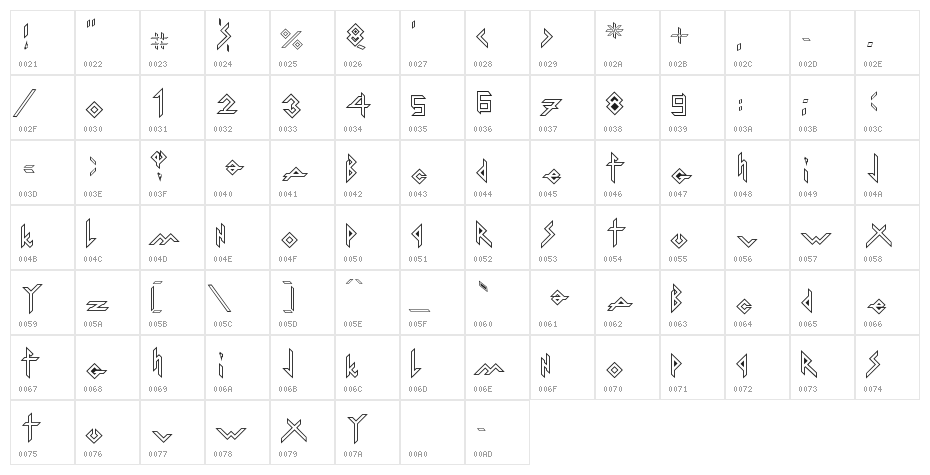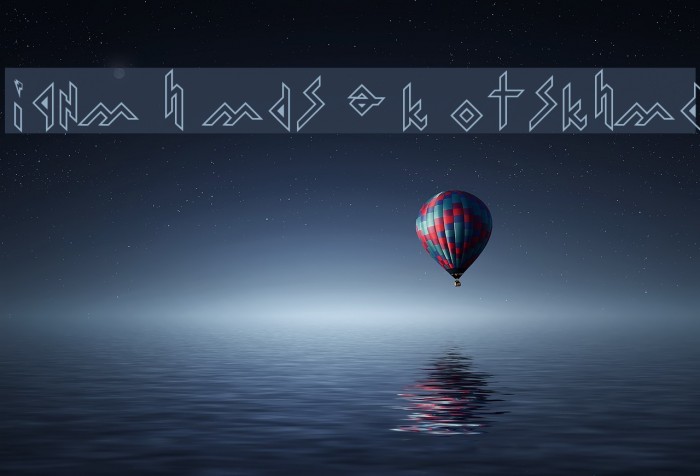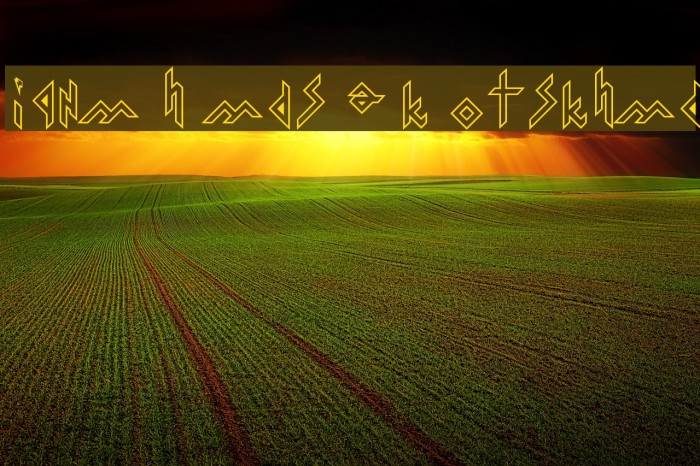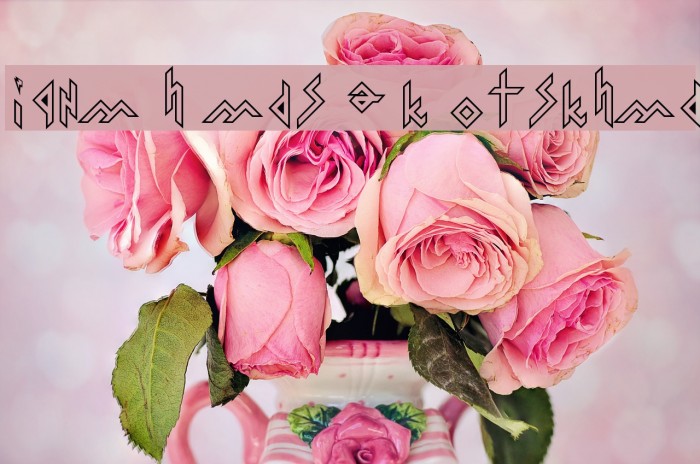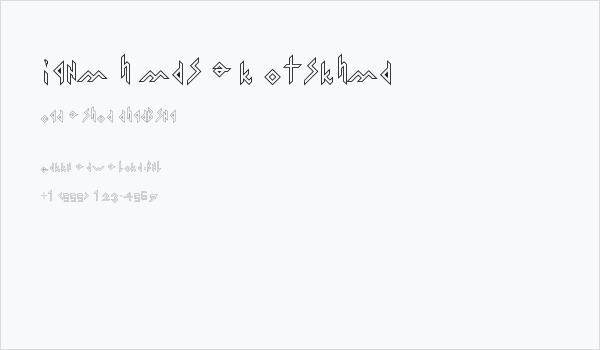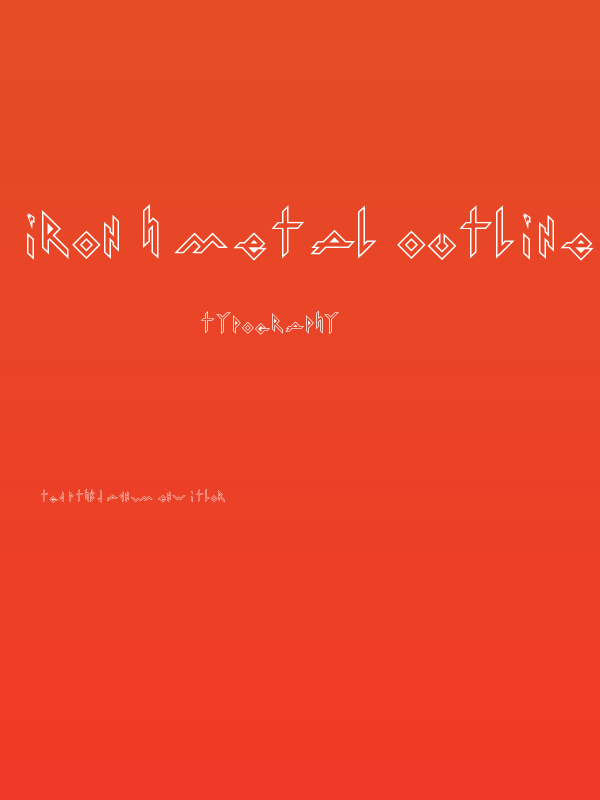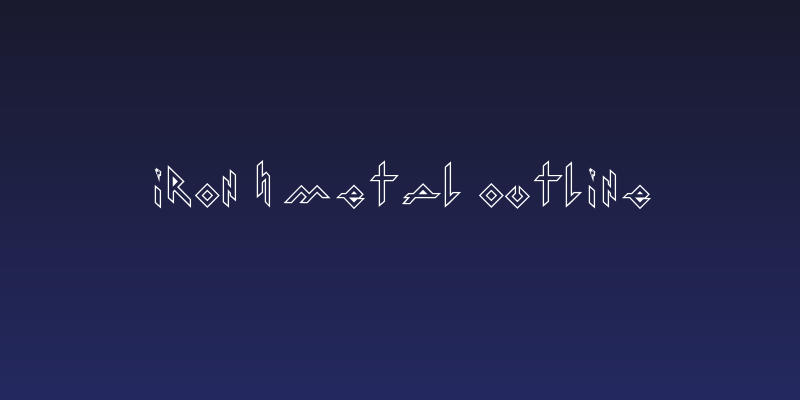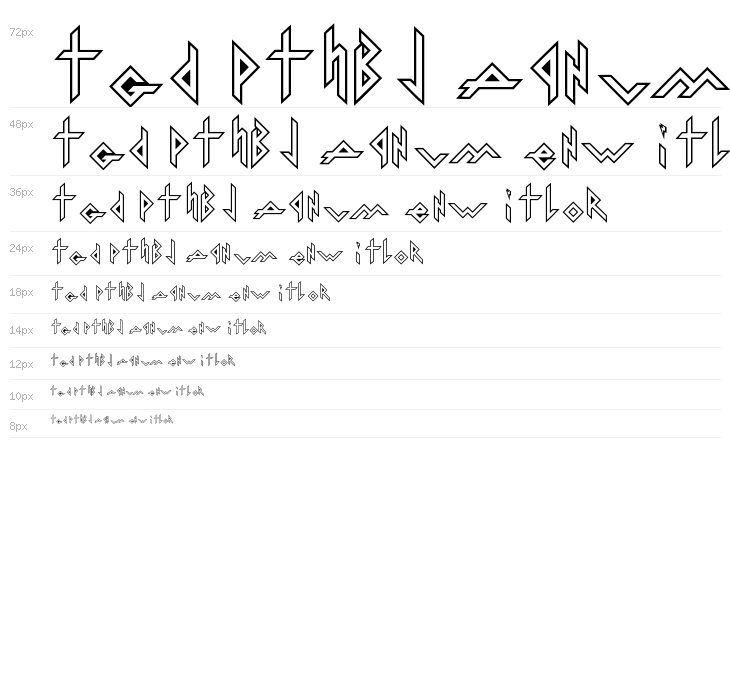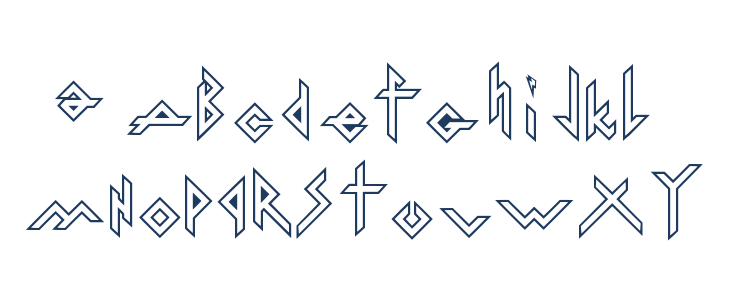
Iron H Metal Outline Font
Iron H Metal Outline Description
This font features a bold, angular design with a distinct metallic outline that gives it a futuristic and industrial feel. The characters are sharply defined with geometric shapes, creating a sense of movement and energy. The uppercase and lowercase letters maintain a consistent style, with unique angles and cuts that make each character stand out. Numbers and special characters follow the same design principles, ensuring a cohesive look across all elements. The font's edgy and modern appearance makes it ideal for projects that require a strong visual impact.